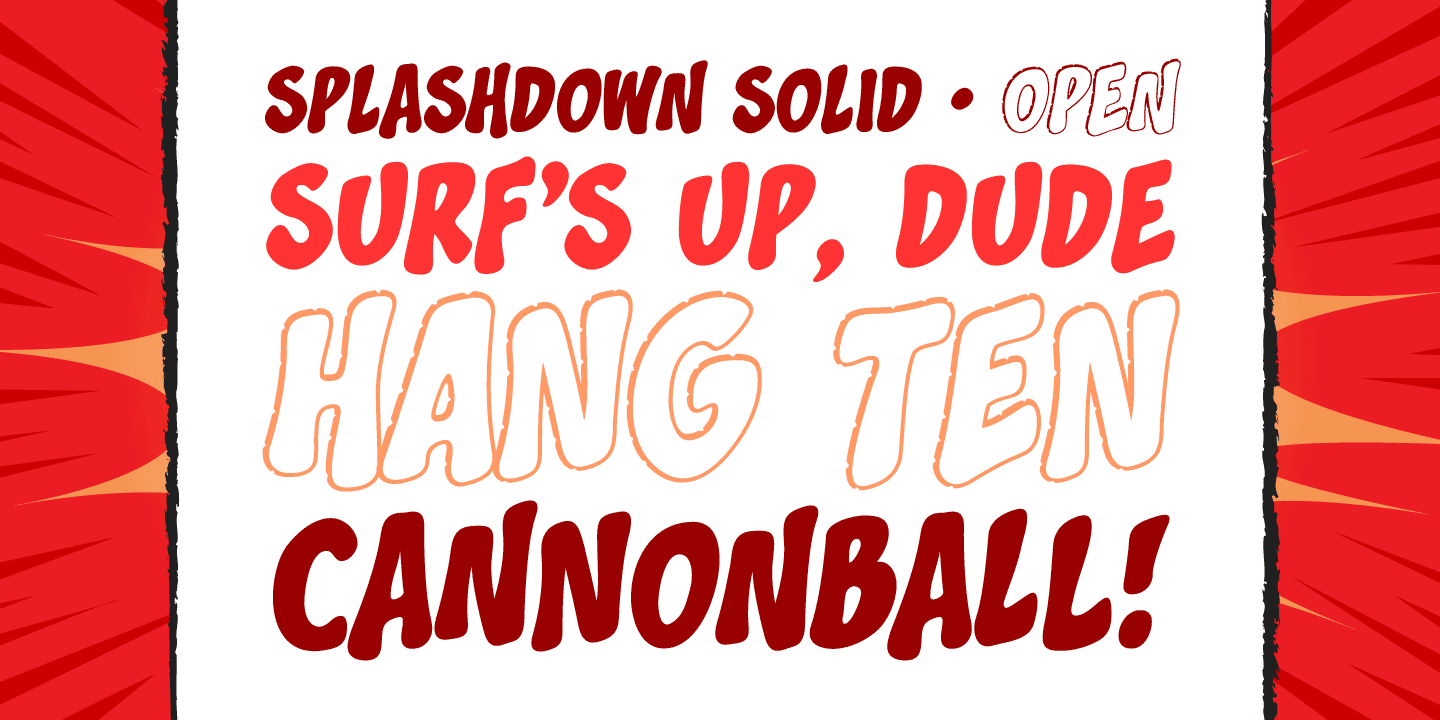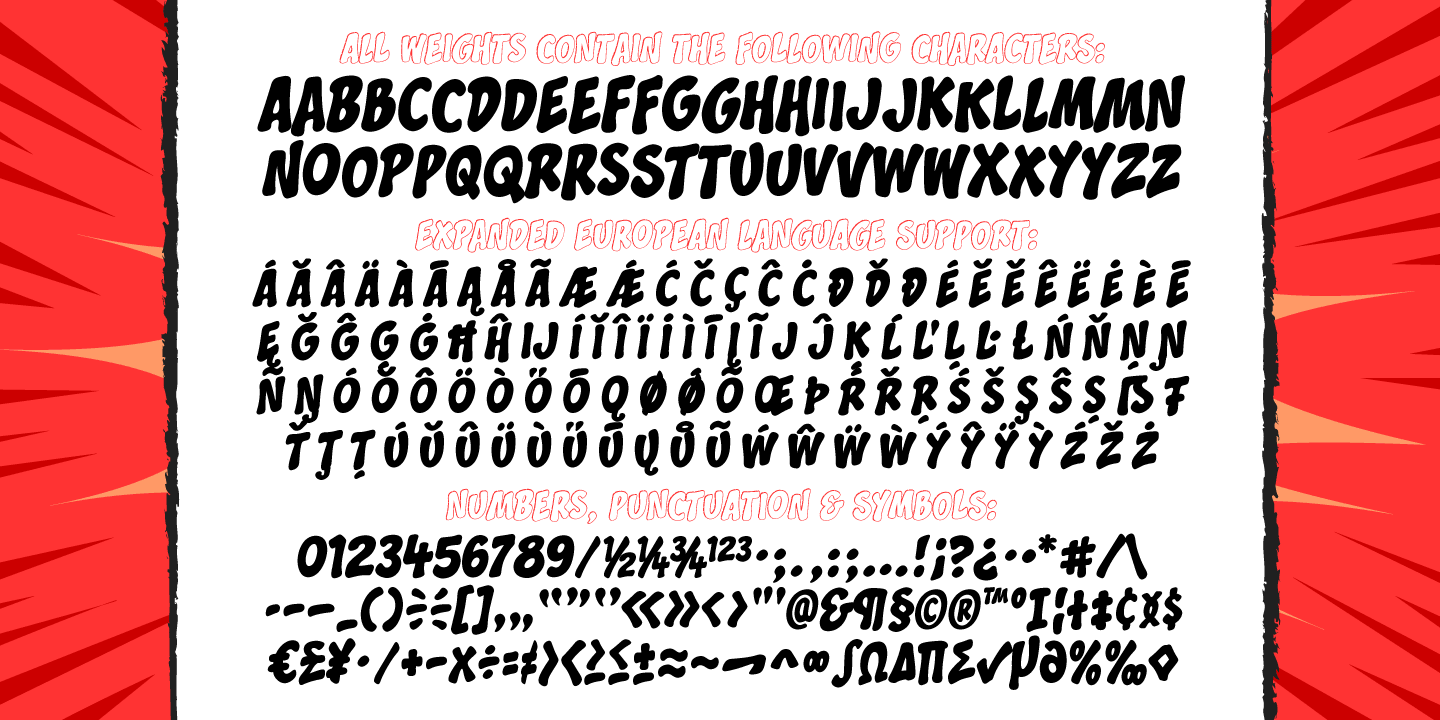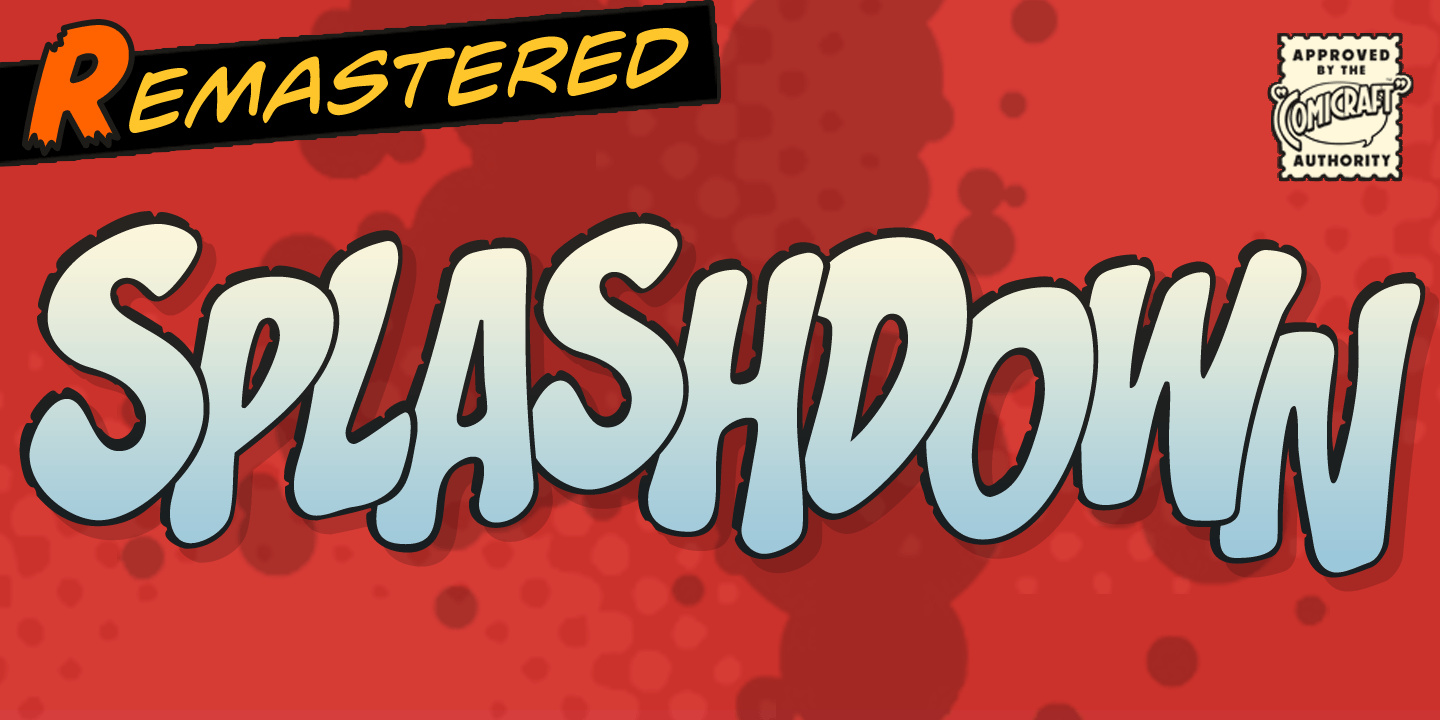
Splashdown
About Splashdown
Surf’s Up! Head on down to the Barrier Reef with your favorite board, your latest pair of Oakleys and join us where the waves break. Zip up your wetsuit and be prepared to Wipe Out! On the other hand, if you’d rather not get wet, simply install…